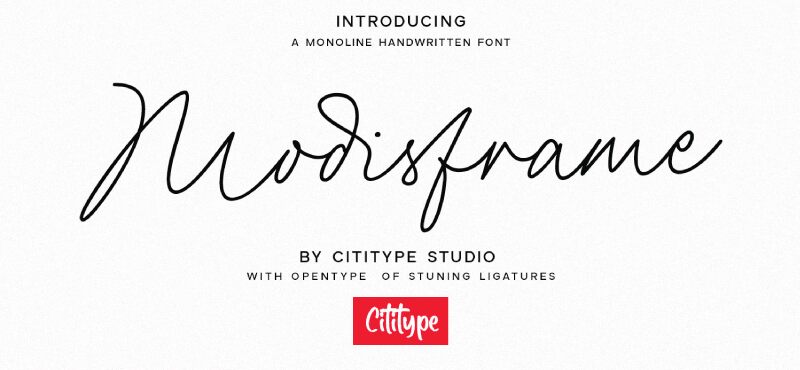
Modisframe Script is a captivating handwritten font crafted by Cititype, exuding an air of elegance and warmth. Its delicate strokes and fluid connections create a sense of intimacy, making it perfect for personal projects or branding that seeks a touch of sophistication.
Visually, the light font captures attention with its graceful curves and inviting aesthetic. This font's unique style shines in invitations, greeting cards, and chic product packaging, where a personal touch is essential. Its ability to convey emotion makes it an excellent choice for both creative and commercial applications.
Whether for heartfelt messages or trendy designs, Modisframe Script offers versatility while maintaining an elegant charm that resonates with various audiences.
Modisframe Script
A monoline Signature font